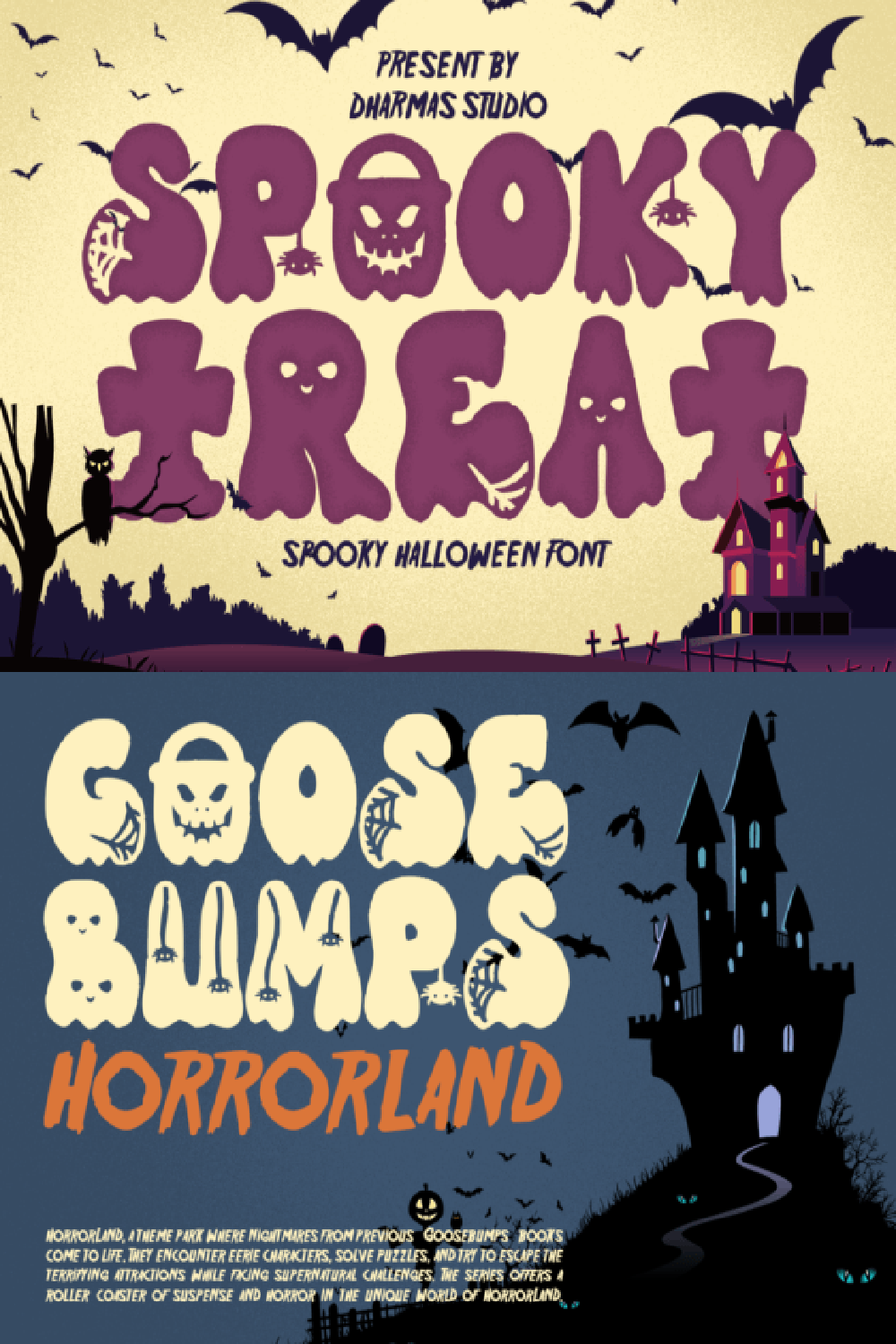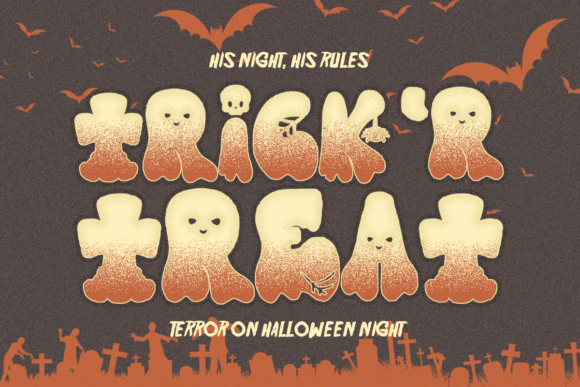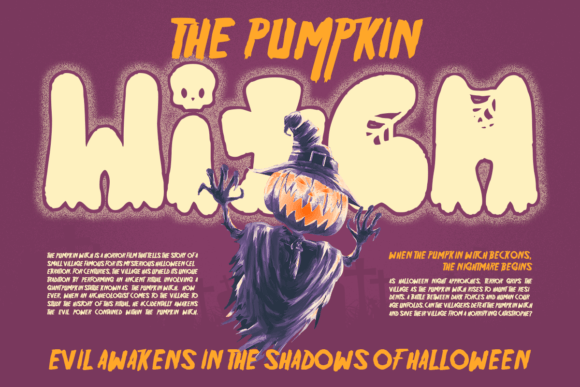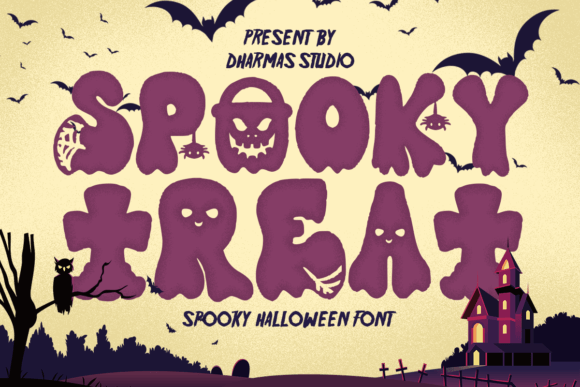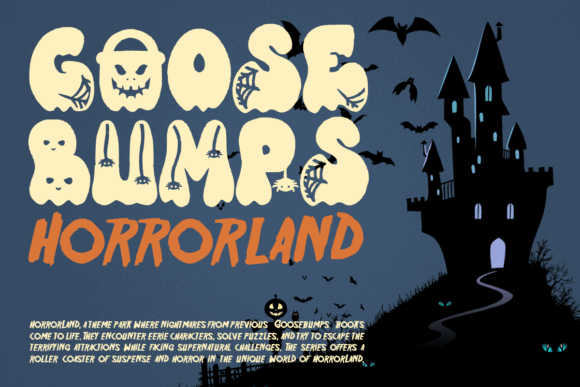
Spooky Treat Font
About the Spooky Treat Font
Let us introduce you to Spooky Treat Font, where timeless design meets modern craftsmanship. Introducing a new Halloween event font, SPOOKY TREAT!
The ultimate Halloween font that will send shivers down your spine! SPOOKY TREAT features a haunting dripping effect, complete with ghostly elements, spiders, and cobwebs, making it the perfect addition to your spooky projects.